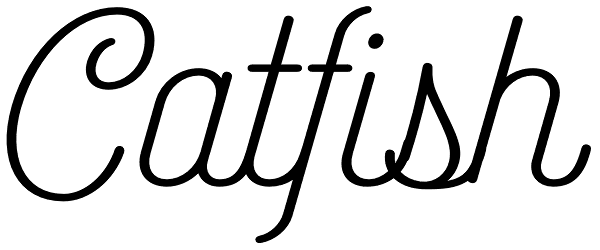
Catfish
Catfish is a monoline geometric script with a touch of classic and vintage and can be used for various purposes such as logos, badges, t-shirt design, signage, labels, book cover design, posters etc... The font is best used in an OpenType-aware...